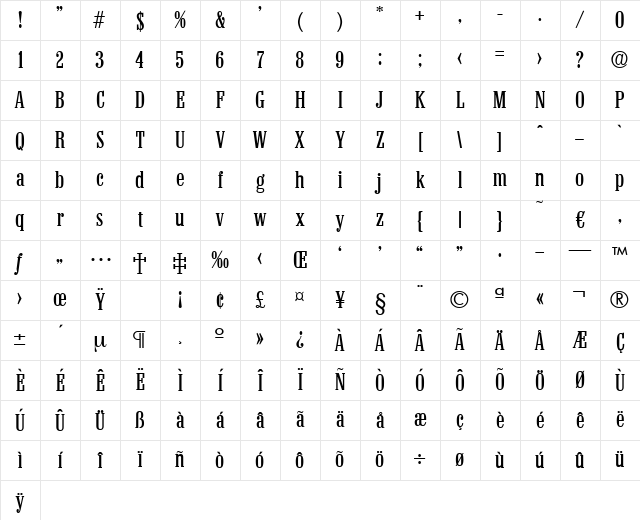
Colonel-Regular Regular
Design Context for Colonel-Regular
Colonel-Regular is a composed and adaptable typeface that performs quietly and consistently across a wide range of design contexts.
Pro Tip: Use Colonel-Regular in both headline and body roles to test its range before committing to a single application.